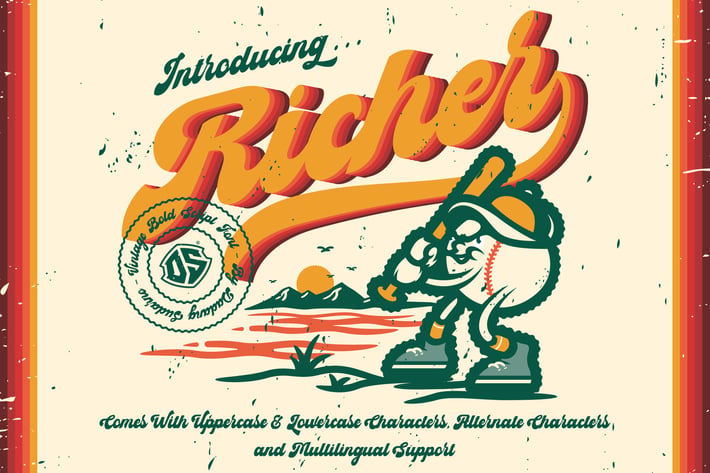
Richer - Vintage Bold Script Font
“RICHER” is vintage bold script font. It has a strong image that be inspired by vintage and craft branding. It also has a beautiful spacing between each character, uppercase & lowercase, alternate characters and multilingual accent support. This font especially made for logotype, display purpose, vintage and modern design. Easy tweaking shape make the logo, logotype, headline, banner, title and wordmarks more outstanding when it is used.